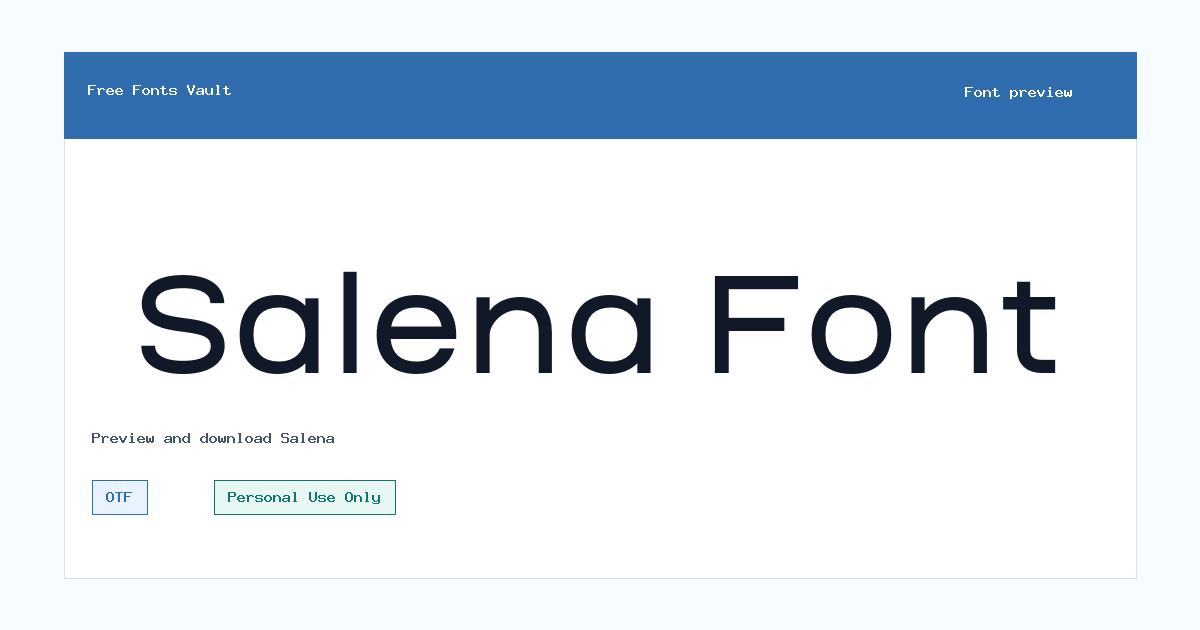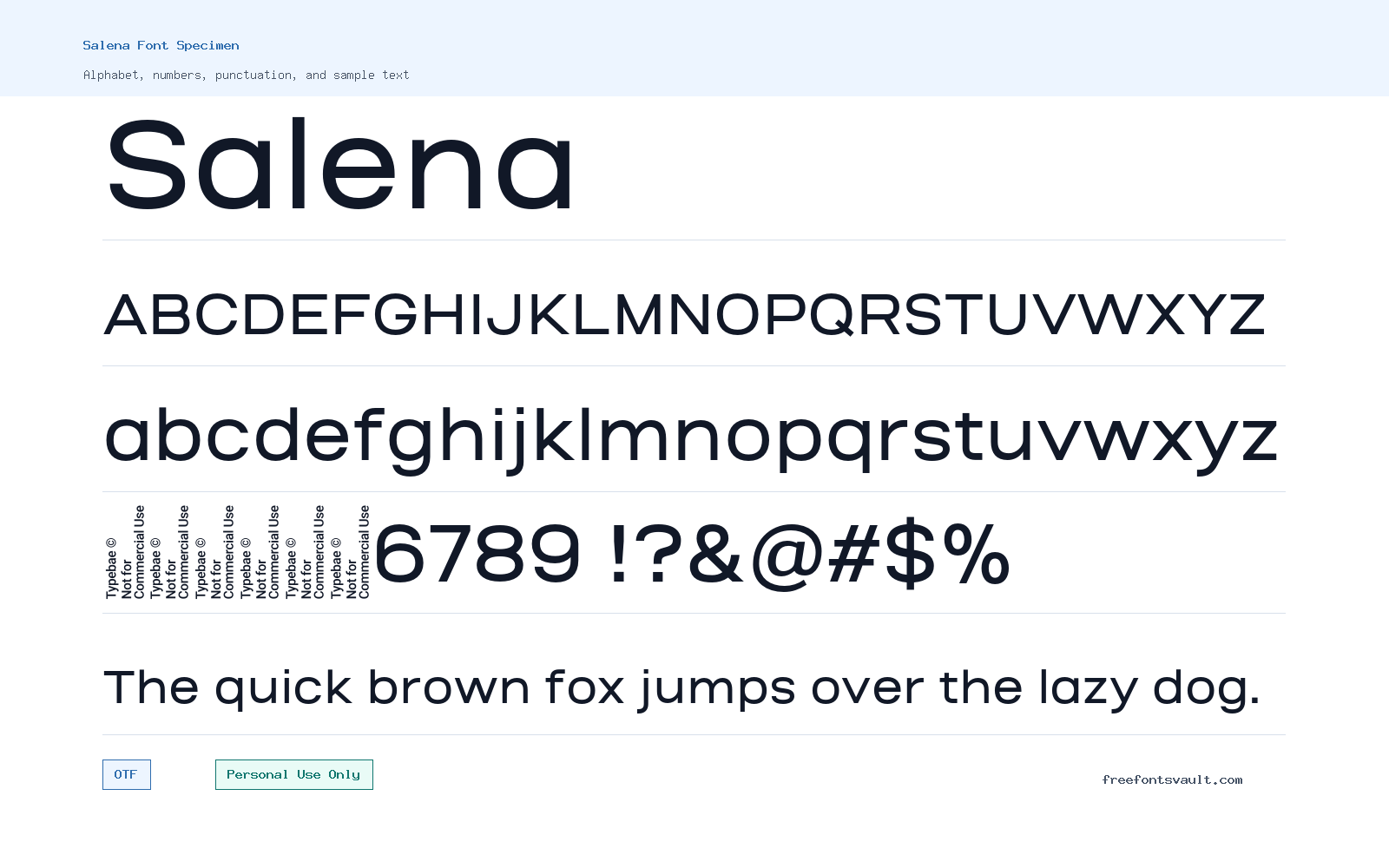
Salena
Salena Font
Salena is a personal-use sans serif font by Iqbal Pauji, offered as an OTF file in a medium-weight style. Use the preview box to see how your own words look before downloading.
About Salena Font
Salena has the practical feel of a modern sans serif, with a medium weight that can work well when you need text to feel clear without becoming too heavy. Because the available file is a normal-style OTF at weight 500, it is best approached as a single display or heading option rather than a full type system with many weights and italics. Try it first in names, short titles, labels, poster lines, or social graphics where one clean style is enough.
For longer text, test carefully in the preview before using it widely. A single medium weight can be useful for emphasis, but it may not give you enough contrast for full layouts that need body copy, captions, bold headings, and hierarchy. Pair Salena with a simple readable text font if you are building a flyer, blog graphic, invitation draft, or personal branding mockup. Keep spacing and line length in mind, especially if your sample includes mixed case, numbers, or punctuation.
• Sans serif style suited to short text previews, headings, and personal design tests
• Personal-use titles, name designs, quote graphics, and simple display text
• Testing clean sans serif styling in mockups, posters, thumbnails, and non-commercial projects
What should I use Salena for?
Use it for personal projects that need short, clear text such as headings, name previews, quote images, posters, and mockups. For long paragraphs, pair it with a dedicated reading font.